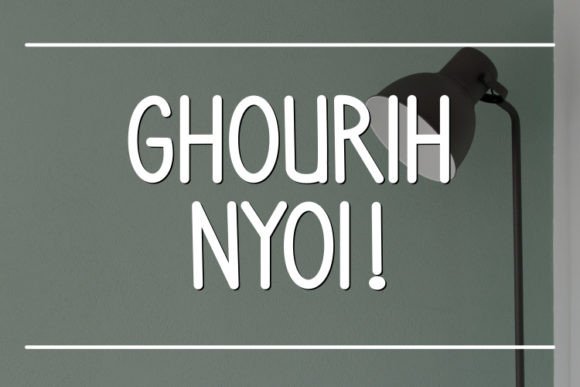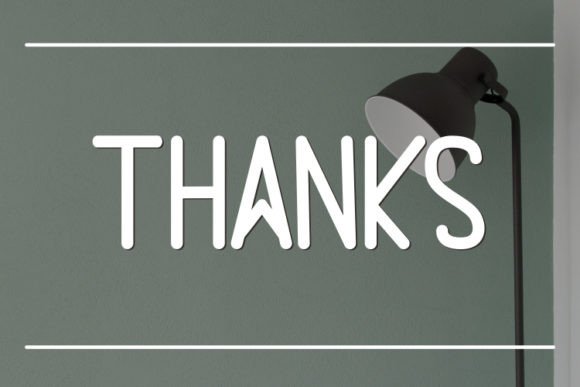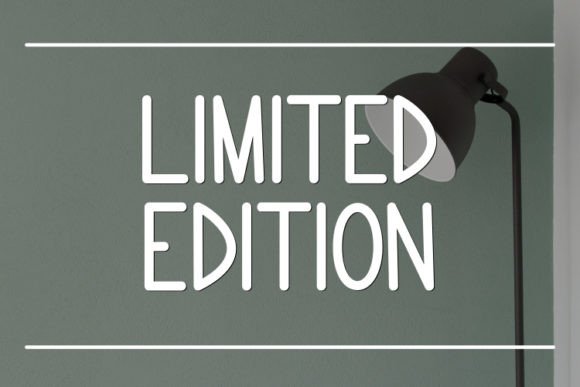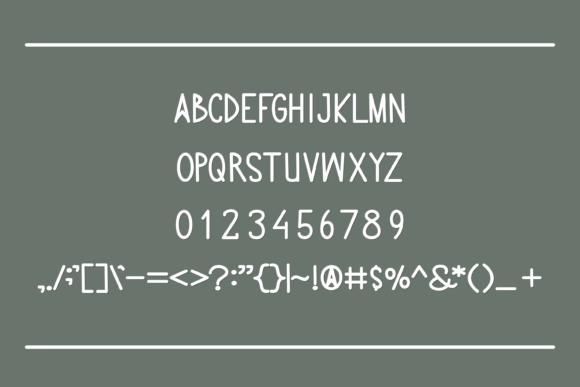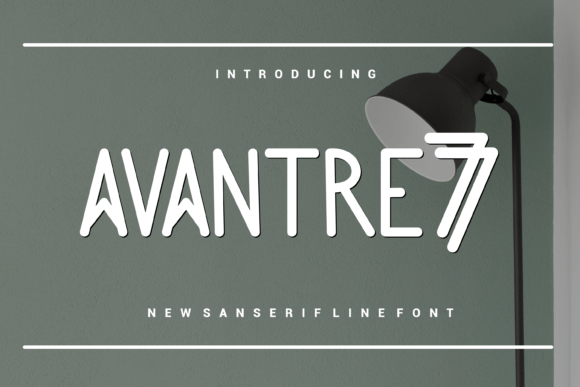
Introducing Avantre77: The Ultimate Handwritten Font for Creative Projects
Are you tired of using the same old fonts for your creative projects? Look no further than Avantre77, a neat and casual handwritten font that’s sure to elevate your designs. With its unique charm and versatility, Avantre77 is an incredible asset to any font library, capable of bringing a fresh perspective to a wide range of topics and projects.
The Characteristics of Avantre77
Avantre77 is a carefully crafted handwritten font that exudes a sense of casual elegance. Its neat and tidy letterforms make it perfect for use in a variety of design applications, from digital projects to print materials. The font’s casual nature also lends itself well to more creative and artistic endeavors, such as crafting, scrapbooking, and journaling.
What Makes Avantre77 So Versatile?
One of the standout features of Avantre77 is its incredible versatility. This font can be used for a wide range of projects, including:
• Digital designs: Use Avantre77 to add a personal touch to your website, social media graphics, or digital invitations.
• Print materials: Add a touch of elegance to your business cards, brochures, or flyers with Avantre77.
• Crafting and scrapbooking: Use Avantre77 to create beautiful journal pages, scrapbook layouts, or handmade cards.
• Journaling and writing: Add a touch of personality to your journal entries or written correspondence with Avantre77.
The Benefits of Using Avantre77
So why should you choose Avantre77 for your next project? Here are just a few benefits of using this amazing font:
• Unique and eye-catching: Avantre77 is a one-of-a-kind font that’s sure to grab attention and set your designs apart from the crowd.
• Easy to read: Despite its handwritten nature, Avantre77 is incredibly legible, making it perfect for use in body text or longer blocks of writing.
• Highly versatile: As mentioned earlier, Avantre77 can be used for a wide range of projects and applications.
• Time-saving: With Avantre77, you can create beautiful, professional-looking designs in a fraction of the time it would take to create them from scratch.
How to Use Avantre77 in Your Designs
Using Avantre77 in your designs is easy! Here are a few tips to get you started:
• Pair it with other fonts: Avantre77 pairs beautifully with a wide range of fonts, from bold and modern to elegant and scripty.
• Experiment with colors: Try pairing Avantre77 with different colors and textures to add depth and interest to your designs.
• Play with sizes: Avantre77 looks great in a variety of sizes, from large and bold to small and delicate.
In conclusion, Avantre77 is an incredible asset to any font library, offering a unique blend of style, versatility, and ease of use. Whether you’re a designer, crafter, or simply a creative enthusiast, Avantre77 is sure to become a go-to font for all your design needs. So why wait? Download Avantre77 today and start elevating your designs to the next level!
Key Features of Avantre77:
• Neat and casual handwritten font
• Unique and eye-catching letterforms
• Highly versatile and easy to read
• Perfect for digital and print designs
• Great for crafting, scrapbooking, and journaling